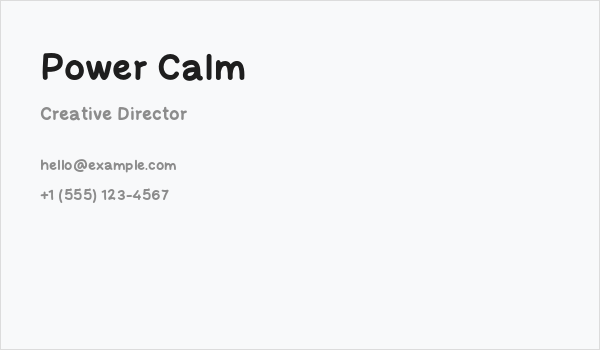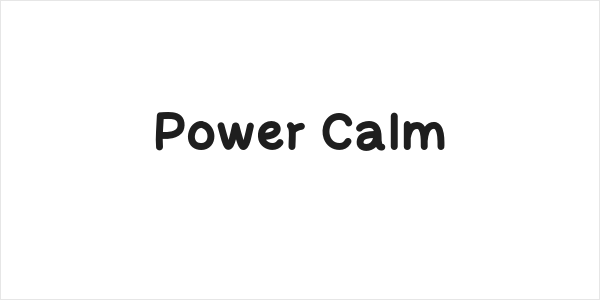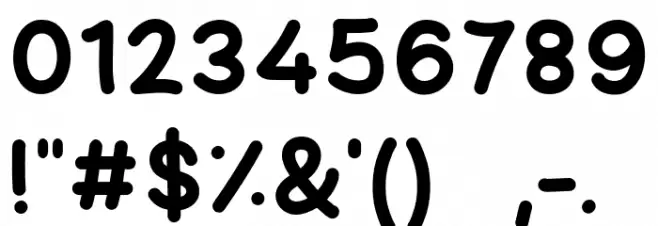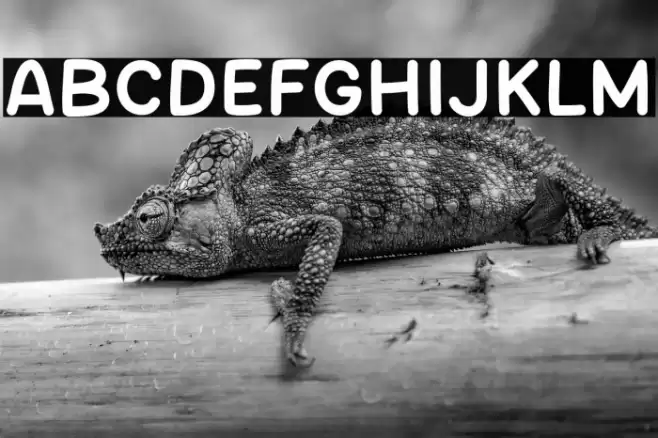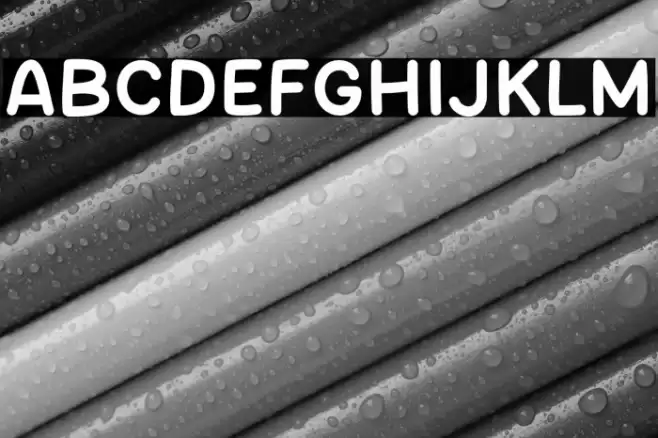
Power Calm Font
Power Calm Description
This font features a playful and rounded style, characterized by its smooth curves and friendly appearance. The letters are bold and have a uniform thickness, giving them a strong presence while maintaining a casual and approachable feel. The rounded edges contribute to a soft and inviting look, making it suitable for designs that aim to convey warmth and approachability. The numerals and special characters follow the same rounded and bold style, ensuring consistency across all elements.
| Proposed Projects | Ideal for children's books, playful branding, casual invitations, and friendly marketing materials. |